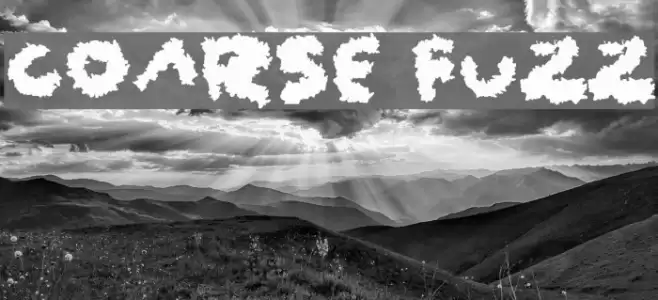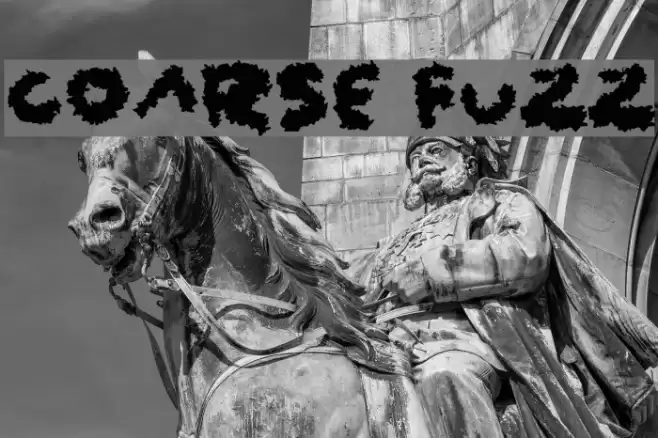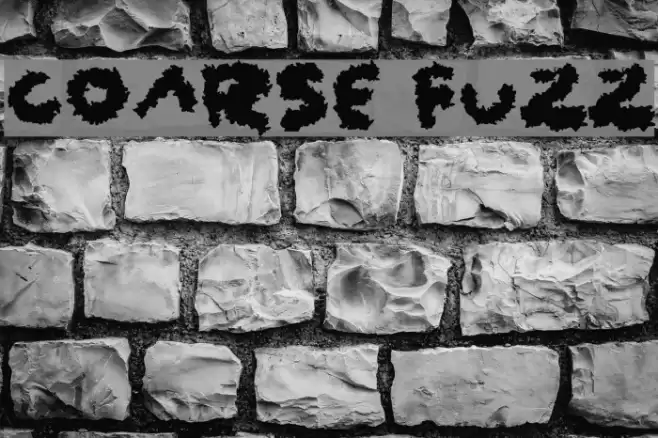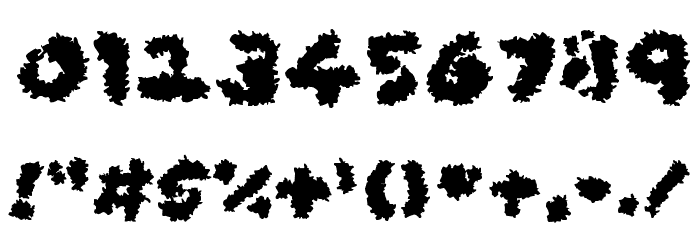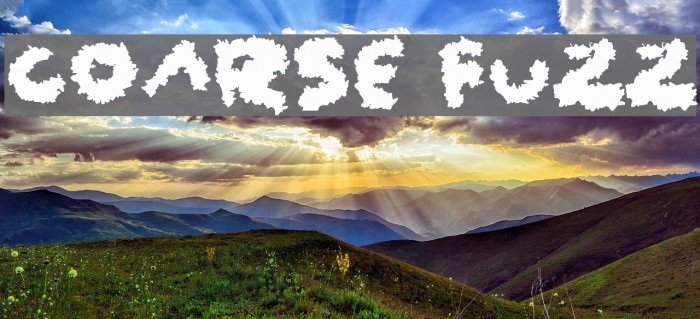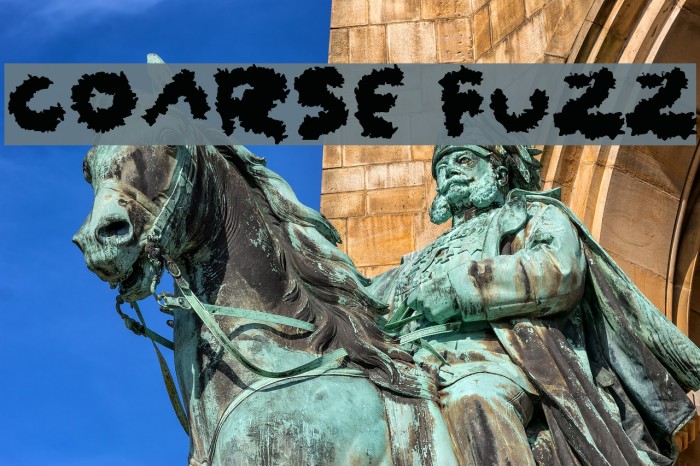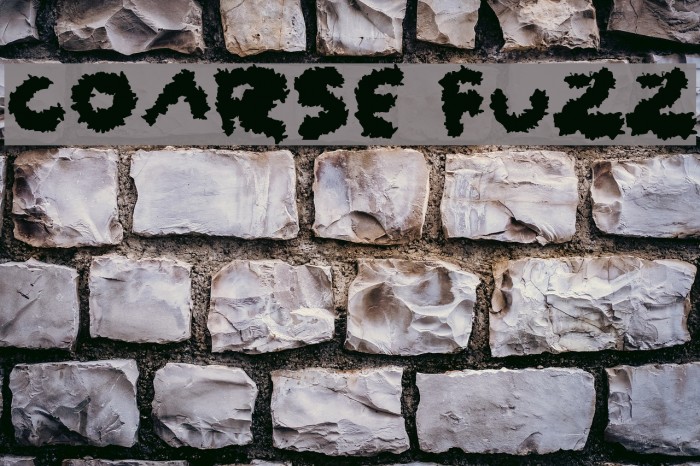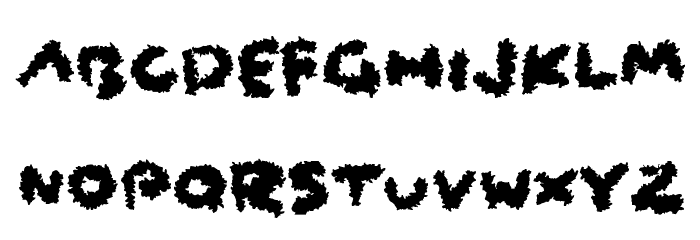
Coarse Fuzz Font
Coarse Fuzz Description
This font features a unique, textured appearance that resembles coarse, fuzzy edges, giving it a distinct and eye-catching look. The characters are bold and irregular, with a playful and artistic style that stands out in any design. The uppercase and lowercase letters maintain a consistent style, while the numbers and special characters complement the overall aesthetic. This font's rough, organic texture makes it ideal for projects that require a touch of creativity and individuality.
A bold, textured font with a coarse, fuzzy appearance from Uncategorized fonts.
- Proposed Projects: Ideal for posters, album covers, artistic projects, and branding that requires a unique and bold statement.
- Use Case: Headlines, Logos, Artistic projects